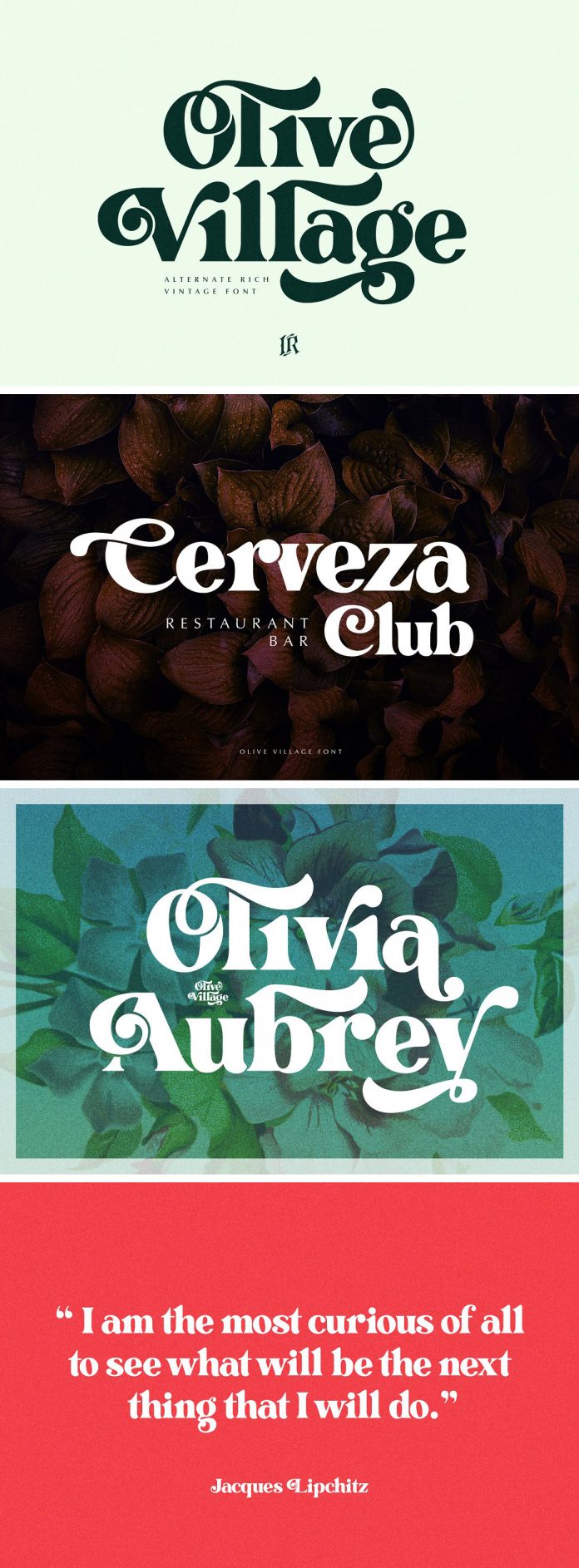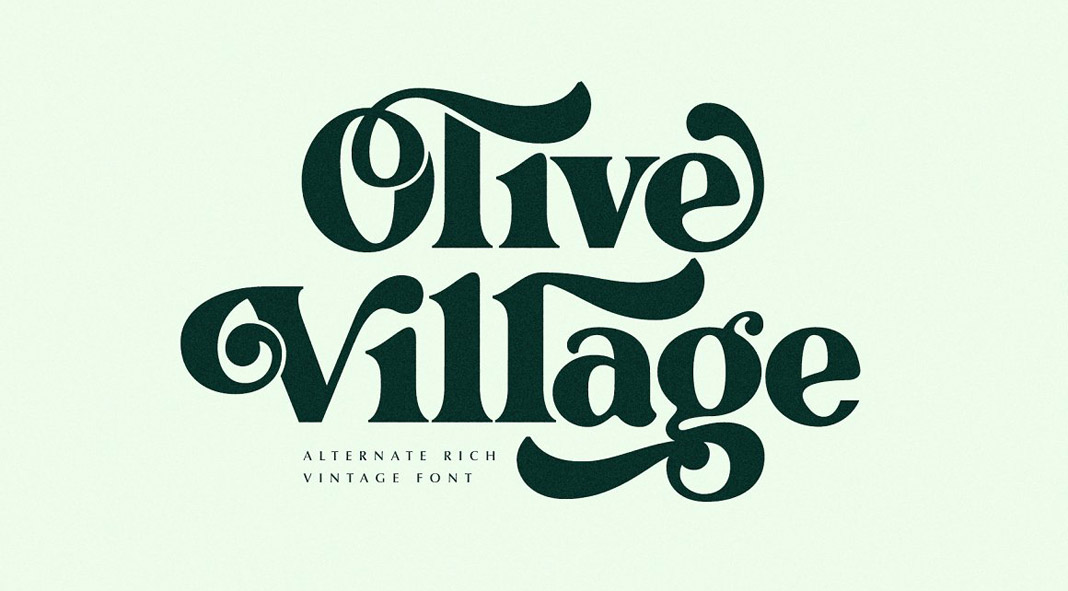
Olive Village, a vintage font made for display usage.
Inspired by the groovy vibes of the 70s, Olive Village is a super-stylish vintage font that looks amazing at display sizes but also offers great readability in smaller sizes. The typeface masterfully combines elegant vintage lettering with a touch of modernity. Olive Village is equipped with numerous OpenType features including a large collection of alternate glyphs and ligatures. Furthermore, the font comes in two versions: Regular and Italic.
This bold display font was made for use in headlines, titles, and even short text sections. It is well-suited for advertising, branding, logotypes, packaging, titles, editorial design, just to name a few. Just click on one of the following links to learn more.